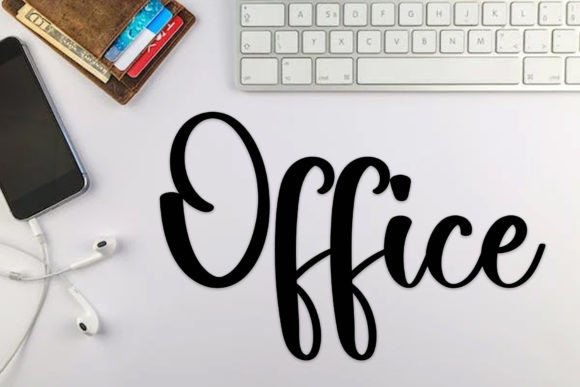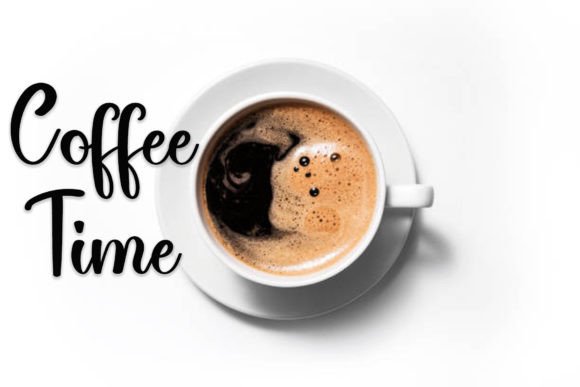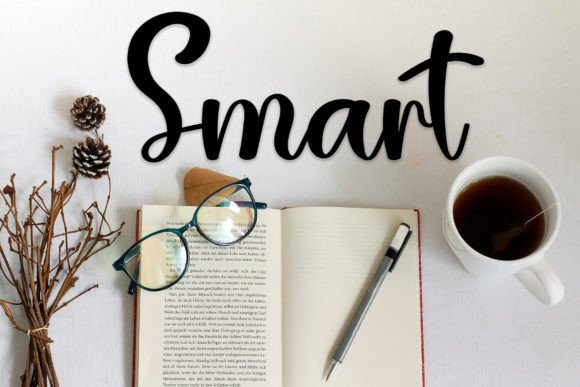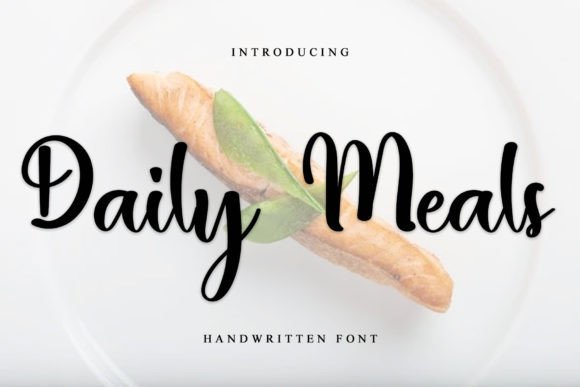
Introduction to Daily Meals Font
Daily Meals is a neat and beautiful handwritten font described by an elegant touch, perfect for your favorite projects.
Fall in love with its incredibly distinct and timeless style, and use it to create spectacular designs .
Daily Meals Font offers exceptional quality and versatility, making it a valuable addition to your design toolkit. Whether you’re creating for personal projects or commercial use, Daily Meals Font delivers professional results.